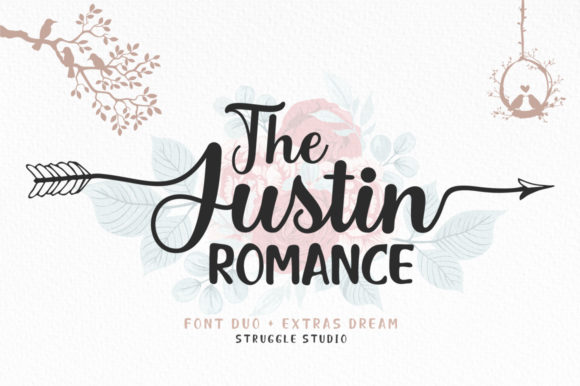
Unleash the allure of The Justin Romance Font, a captivating duo of display and script fonts, meticulously crafted by Struggle Studio. This font duo exudes elegance and charm, adding a touch of sophistication to your creative endeavors.
Immerse yourself in the world of The Justin Romance, where every letter dances with grace and flows effortlessly. The display font commands attention with its bold presence, while the script font enchants with its delicate strokes and whimsical charm. This font duo is a match made in heaven, harmonizing seamlessly to elevate your designs to new heights.
Imagine your wedding invitations adorned with The Justin Romance, the words "I do" written in a script so enchanting, it will make hearts flutter. The display font adds a touch of grandeur, announcing your special day with a flourish. Your guests will be captivated by the beauty of your invitations, a testament to the love and care you've poured into planning your special day.
But The Justin Romance is not limited to wedding invitations. Its versatility knows no bounds. Unleash your creativity and let this font duo transform your branding, social media posts, logos, posters, and more. The possibilities are endless, as The Justin Romance effortlessly adapts to any design concept, adding a touch of magic and sophistication.
Take your designs to the next level with The Justin Romance. Experience the joy of creating with fonts that speak to your heart, fonts that make your words come alive. Embrace the beauty of The Justin Romance and watch your creative visions flourish.